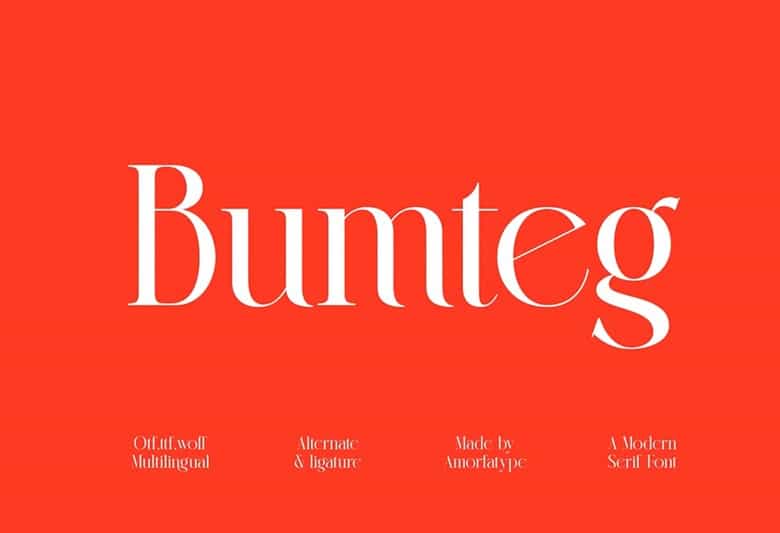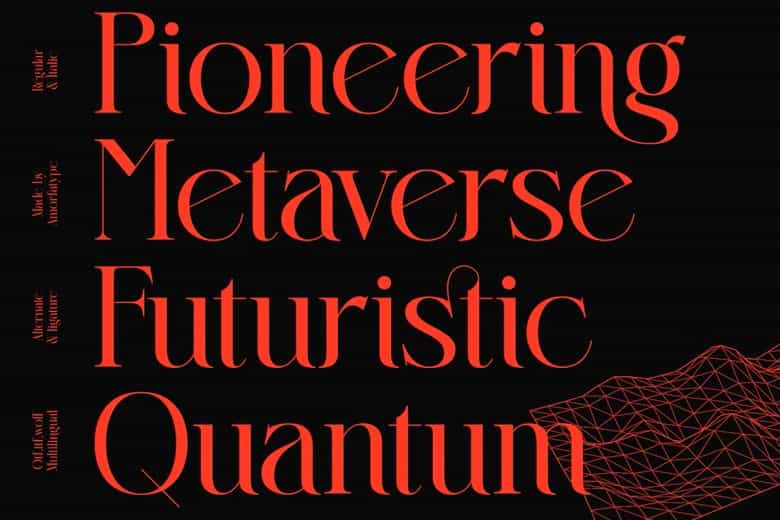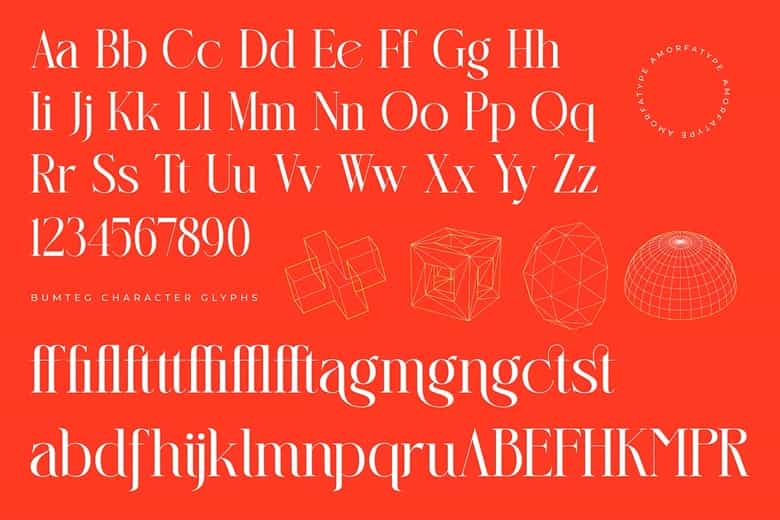
Bumteg is a new font with strong contrast, based on serif typeface, traditional but with some peculiarities of minimalism. This font has geometric, serif design and smooth line shape making it highly suitable for professional and delicate projects.